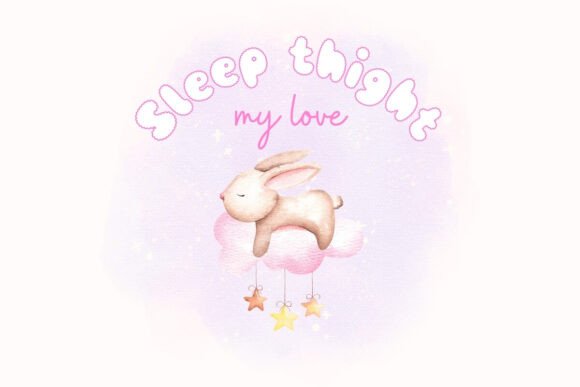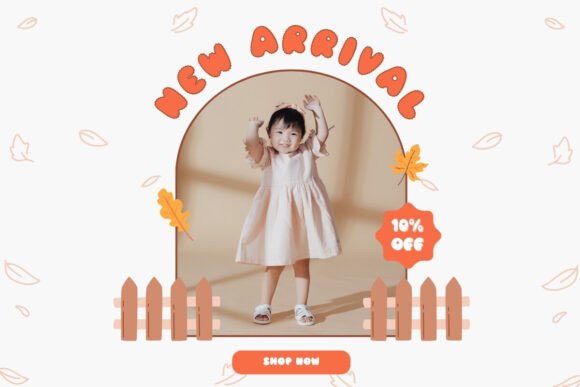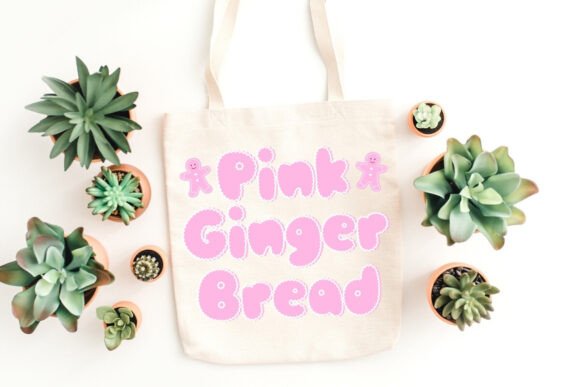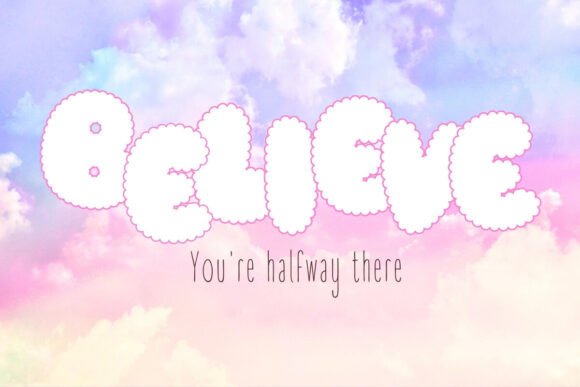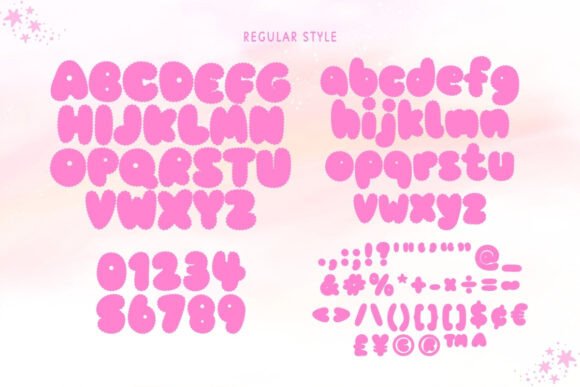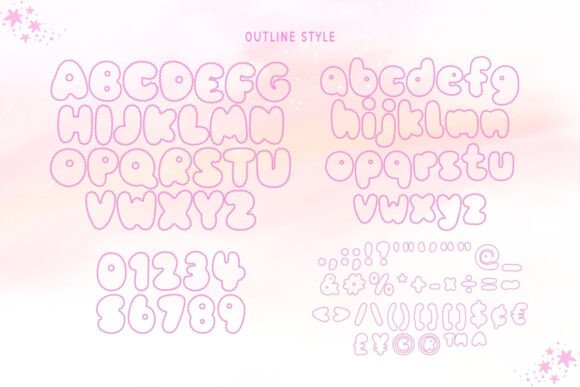
Introducing the Good Dream Font: A Whimsical Choice for Child-Centered Designs
Are you looking for a font that captures the innocence and wonder of childhood? Look no further than the “Good Dream” font, a cute and playful bubble font perfect for children’s projects, educational materials, and whimsical designs. With its rounded, puffy letters and charming aesthetic, this font is sure to delight designers and crafters alike.
What Makes the Good Dream Font So Special?
The “Good Dream” font is a nursery-style bubble font that exudes a sense of sweetness and charm. Its rounded, puffy letters are reminiscent of childhood wonder and magic, making it an ideal choice for projects that require a playful and imaginative touch. Whether you’re designing baby shower invitations, kids’ apparel, nursery decor, or educational materials, this font is sure to bring a smile to your audience’s faces.
Perfect for Child-Centered Designs
The “Good Dream” font is specifically designed with child-centered projects in mind. Its innocent and whimsical aesthetic makes it perfect for:
- Baby shower invitations: Create adorable and memorable invitations that set the tone for a joyful celebration.
- Kids’ apparel: Design fun and playful t-shirts, hoodies, and other clothing items that kids will love.
- Nursery decor: Add a touch of sweetness to nursery walls, bedding, and curtains with this charming font.
- Educational materials: Make learning fun with educational resources that feature engaging and colorful designs.
Key Features of the Good Dream Font
So, what makes the “Good Dream” font so special? Here are some of its key features:
- Rounded, puffy letters: Give your designs a soft and cuddly feel with this unique font style.
- Playful aesthetic: Add a touch of whimsy and fun to your designs with this charming font.
- Easy to read: Despite its playful nature, the “Good Dream” font is easy to read and understand.
- Versatile: Use this font for a wide range of projects, from digital designs to print materials.
Tips for Using the Good Dream Font
To get the most out of the “Good Dream” font, here are some tips to keep in mind:
- Pair with complementary fonts: Combine the “Good Dream” font with other fonts to create visually appealing and engaging designs.
- Use bright colors: Bring out the playful nature of this font with bright and cheerful colors.
- Experiment with sizes: Play around with different font sizes to add emphasis and create visual interest.
- Keep it simple: Don’t overcomplicate your design – let the “Good Dream” font be the star of the show.
The “Good Dream” font is a delightful and charming addition to any designer’s toolkit. Its unique blend of playfulness and innocence makes it perfect for child-centered projects, educational materials, and whimsical designs. With its rounded, puffy letters and easy-to-read aesthetic, this font is sure to capture the hearts of designers and crafters alike. So why wait? Download the “Good Dream” font today and start creating your own whimsical and engaging designs!